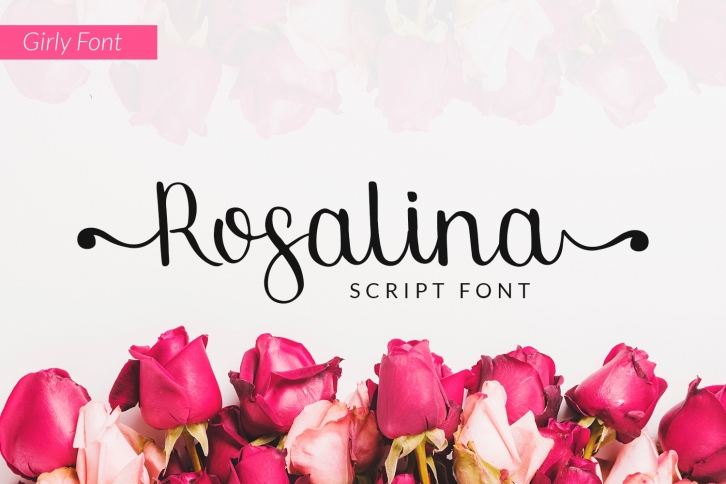
Rosalina is a gorgeous font that was realeased on February 16, 2019. The font can be used in many style contexts and design environments. Perfect for invitations, magazines, websites, logos, and more! It was designed by sixtwenty and the file size is 6.22 MB. Thanks for checking out this font!